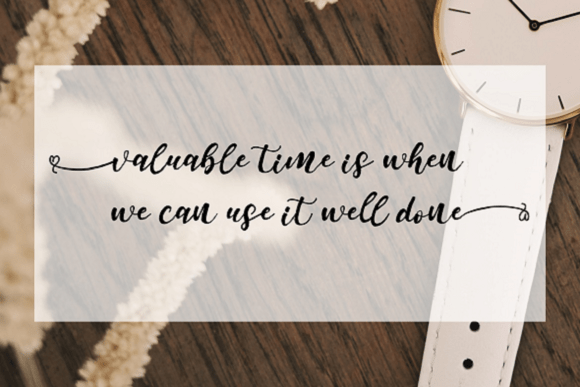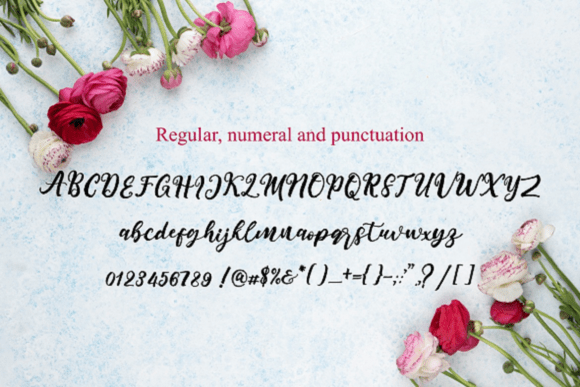
Freebie Wednesday: My Shine (font)
My Shine is a stunning handwritten font carefully created with a touch of elegance. This font is PUA encoded which means you can access all of the beautiful glyphs and swashes with ease! Avaiable for download on the Creative Fabrica site.